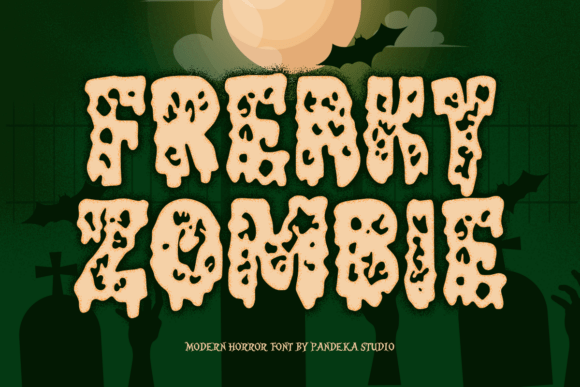
Freaky Zombie Font: The Ultimate Display Font for Spooky Season
Are you looking for a font that captures the essence of Halloween? Do you want to add a touch of playful fear and quirky energy to your creative projects? Look no further than the Freaky Zombie Font, a creepy yet fun Halloween display font that’s perfect for a wide range of applications.
Inspired by the Dark Side of Halloween
The Freaky Zombie Font is inspired by the gooey textures, zombie forms, and horror comics that bring Halloween to life. Its bold dripping shapes and irregular details evoke a sense of eeriness and foreboding, yet its playful and quirky vibe makes it perfect for a variety of creative projects. Every letter feels alive, like it just crawled out of a haunted graveyard, making it an ideal choice for anyone looking to add a touch of spookiness to their designs.
Perfect for a Wide Range of Applications
The Freaky Zombie Font is a versatile display font that’s perfect for a wide range of applications, including:
- Halloween posters and flyers
- Party invitations and event branding
- Horror movie titles and credits
- Candy packaging and treats
- Spooky branding and merchandise
- Seasonal decorations and signage
What Makes Freaky Zombie Font So Special?
So, what sets the Freaky Zombie Font apart from other display fonts? Here are just a few features that make it a standout:
- Bold and dripping shapes: The Freaky Zombie Font features bold, dripping shapes that give it a unique and eye-catching appearance.
- Irregular details: The font’s irregular details add to its quirky and playful vibe, making it perfect for creative projects that require a touch of whimsy.
- Perfect balance of scary and silly: The Freaky Zombie Font strikes the perfect balance between scary and silly, making it perfect for a wide range of applications.
How to Use Freaky Zombie Font in Your Designs
Using the Freaky Zombie Font in your designs is easy. Here are a few tips to get you started:
- Pair it with a simple font: Pair the Freaky Zombie Font with a simple font to create a striking contrast and add visual interest to your designs.
- Experiment with colors: The Freaky Zombie Font looks great in a variety of colors, from bold and bright to dark and muted.
- Add some texture: Add some texture to your designs by incorporating images or illustrations that complement the Freaky Zombie Font.
Why Choose Freaky Zombie Font?
So, why choose the Freaky Zombie Font for your creative projects? Here are just a few reasons:
- Unique and eye-catching: The Freaky Zombie Font is a unique and eye-catching display font that’s sure to grab attention.
- Perfect for Halloween: The font is specifically designed for Halloween, making it perfect for seasonal designs and projects.
- Versatile: The Freaky Zombie Font is a versatile display font that can be used in a wide range of applications.
In conclusion, the Freaky Zombie Font is a creepy yet fun Halloween display font that’s perfect for a wide range of creative projects. Its bold dripping shapes, irregular details, and perfect balance of scary and silly make it a standout font that’s sure to grab attention. Whether you’re designing Halloween posters, party invitations, horror movie titles, or seasonal merchandise, the Freaky Zombie Font is the perfect choice.